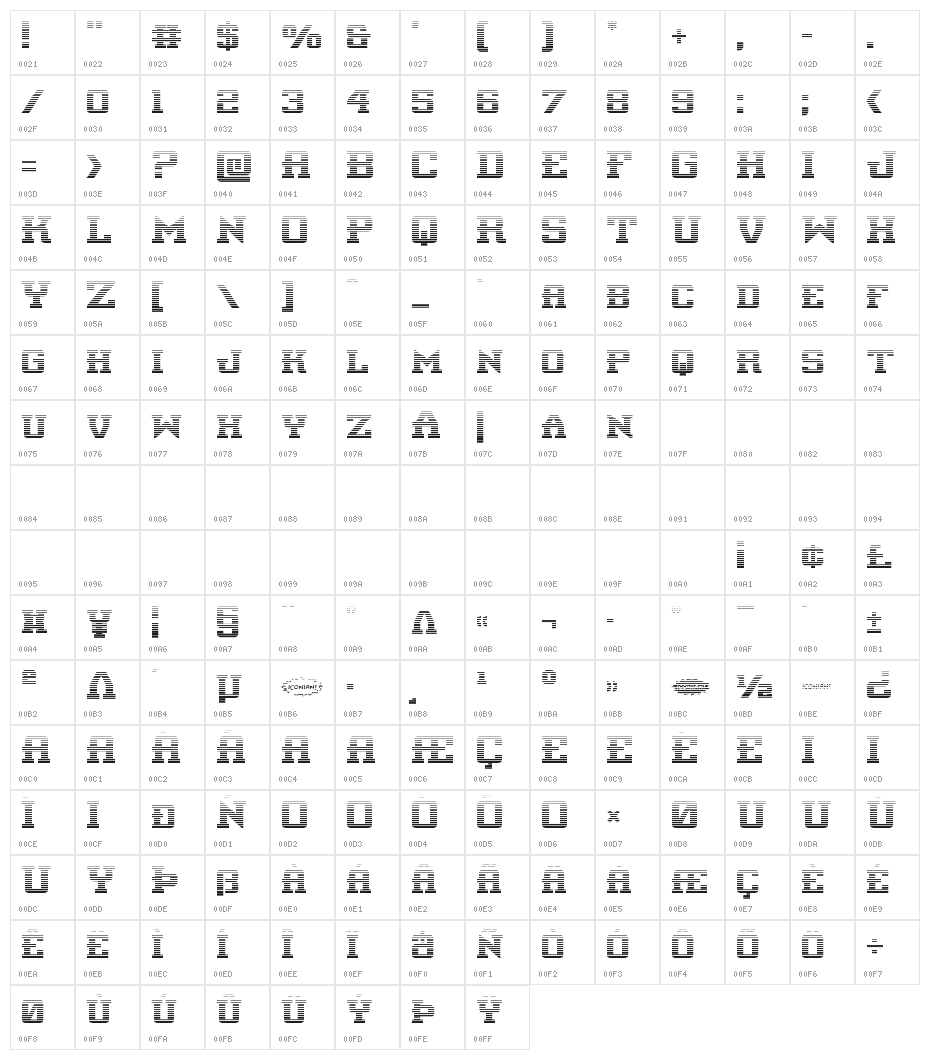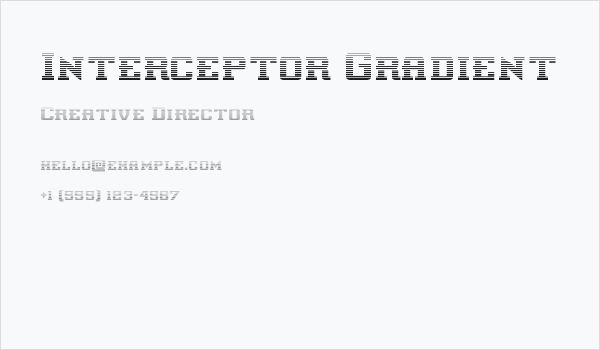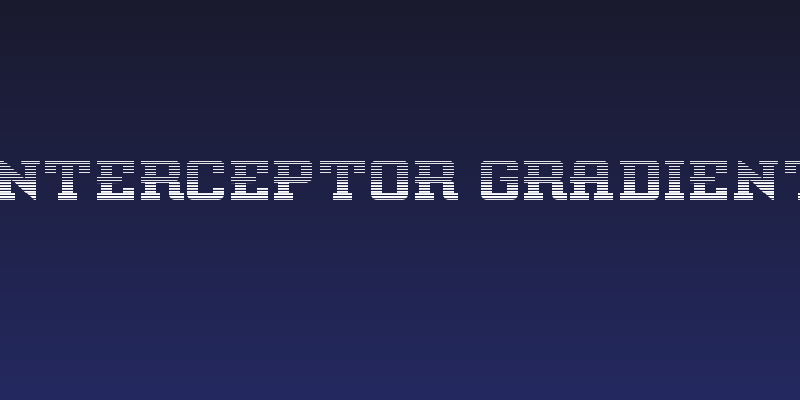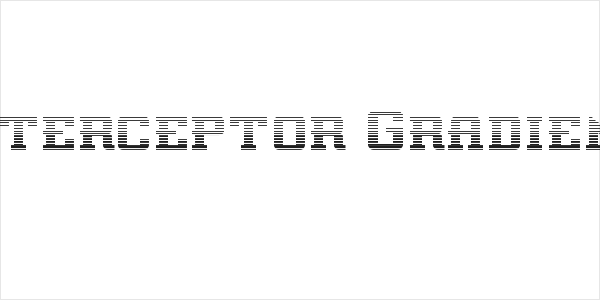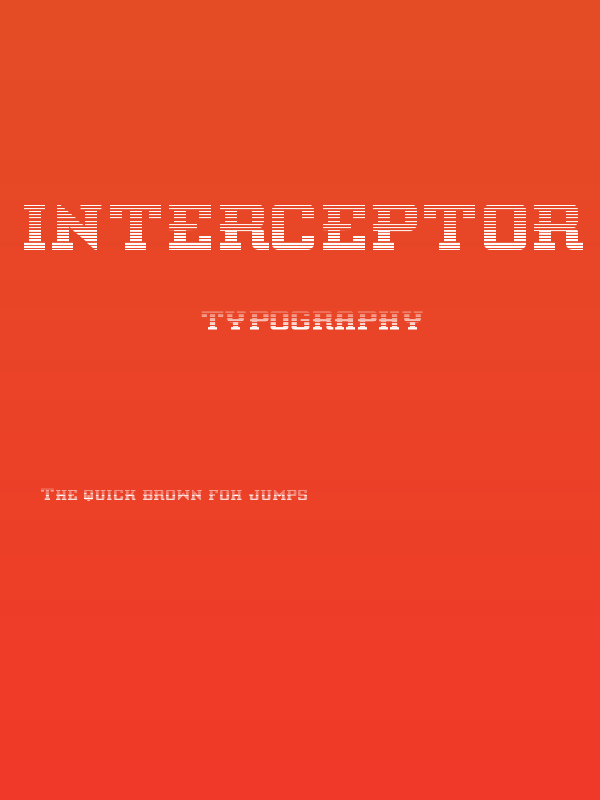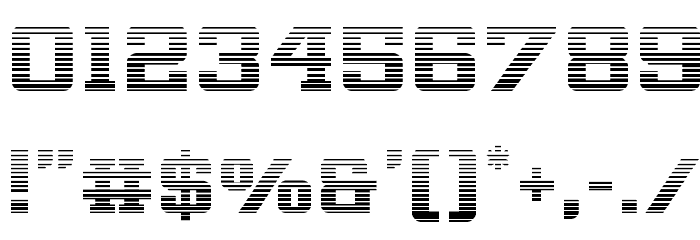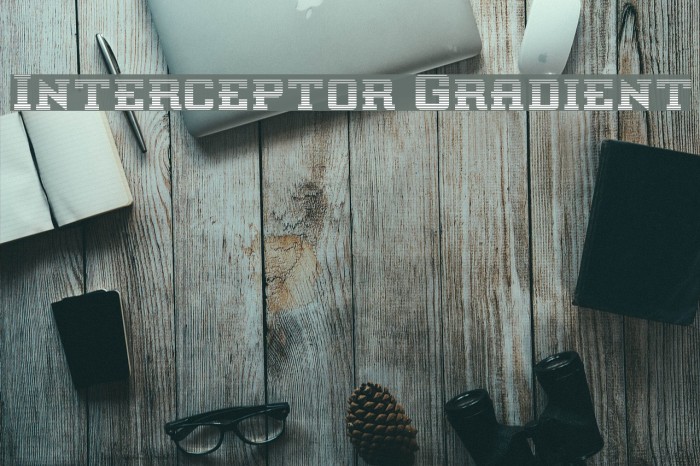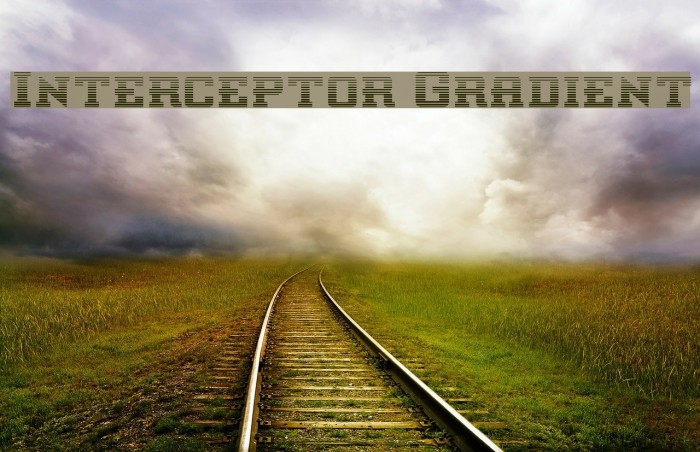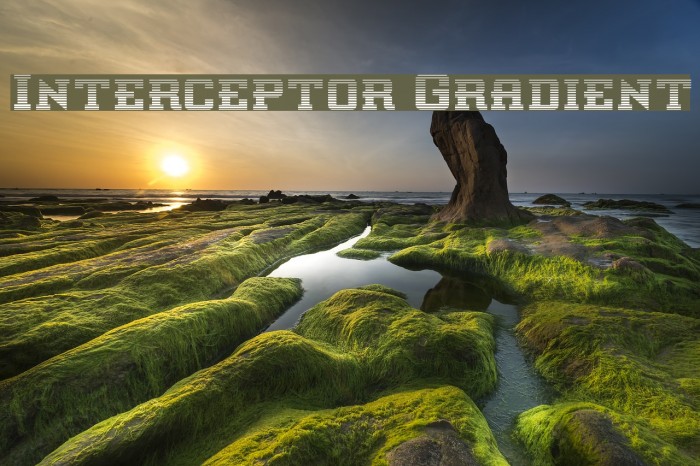
Interceptor Gradient Font
Interceptor Gradient Description
This font features a bold, decorative style with a unique gradient effect created by horizontal lines across each character. The uppercase letters are strong and impactful, making them ideal for attention-grabbing headlines. The numbers and special characters maintain the same boldness and decorative style, ensuring consistency across all elements. The font's design is reminiscent of vintage or retro aesthetics, yet it carries a modern twist with its gradient detailing. The characters are evenly spaced, providing a balanced and cohesive look. This font is particularly suitable for projects that require a standout, artistic touch.
| Overall Style | Vintage, Modern |
| Proposed Projects | Ideal for posters, logos, branding materials, and any design requiring a bold, artistic statement. |